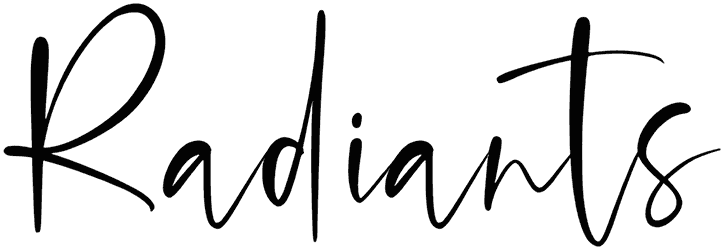
Radiants Font
Introducing Radiants, a delicate handwritten font with a signature style. It looks casual, yet modern, which allows you to elevate your project to the highest level. This font has a realistic vibe and good functionality, but it doesn’t support some numbers and might be unreadable.
It will be an excellent choice for branding, watermarks, wedding invitations, labels, or those designs that need an elegant, handmade touch.